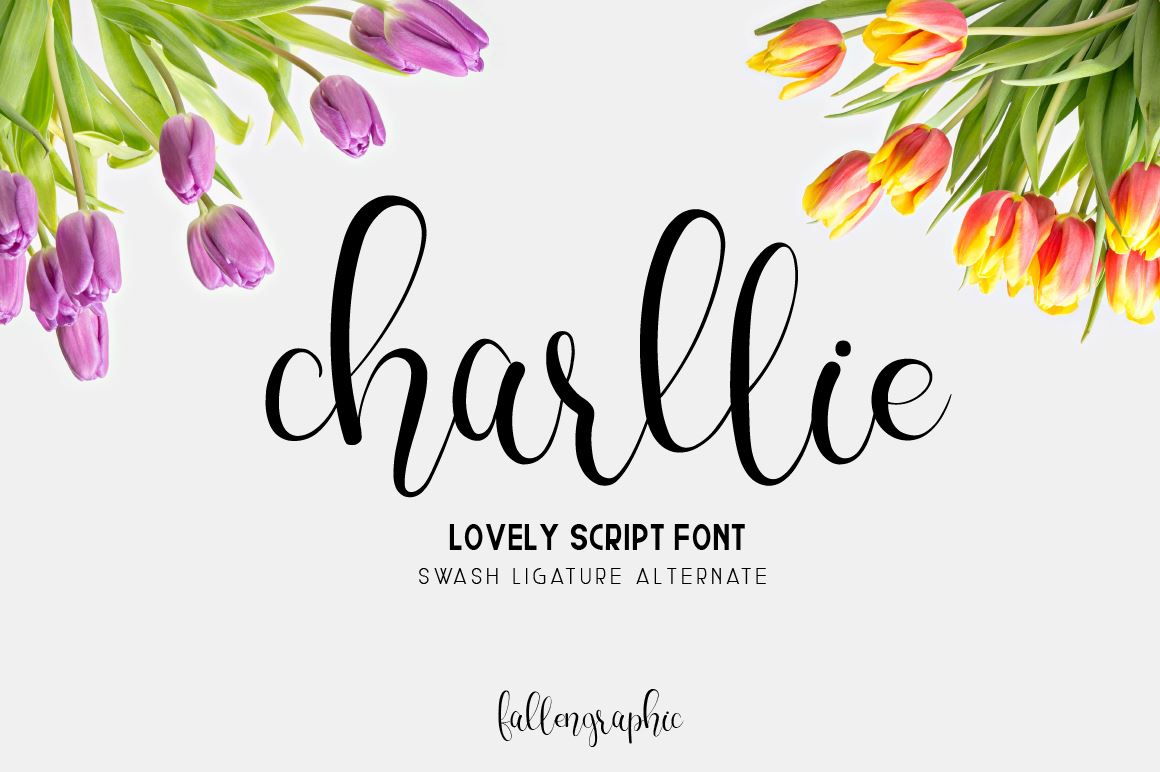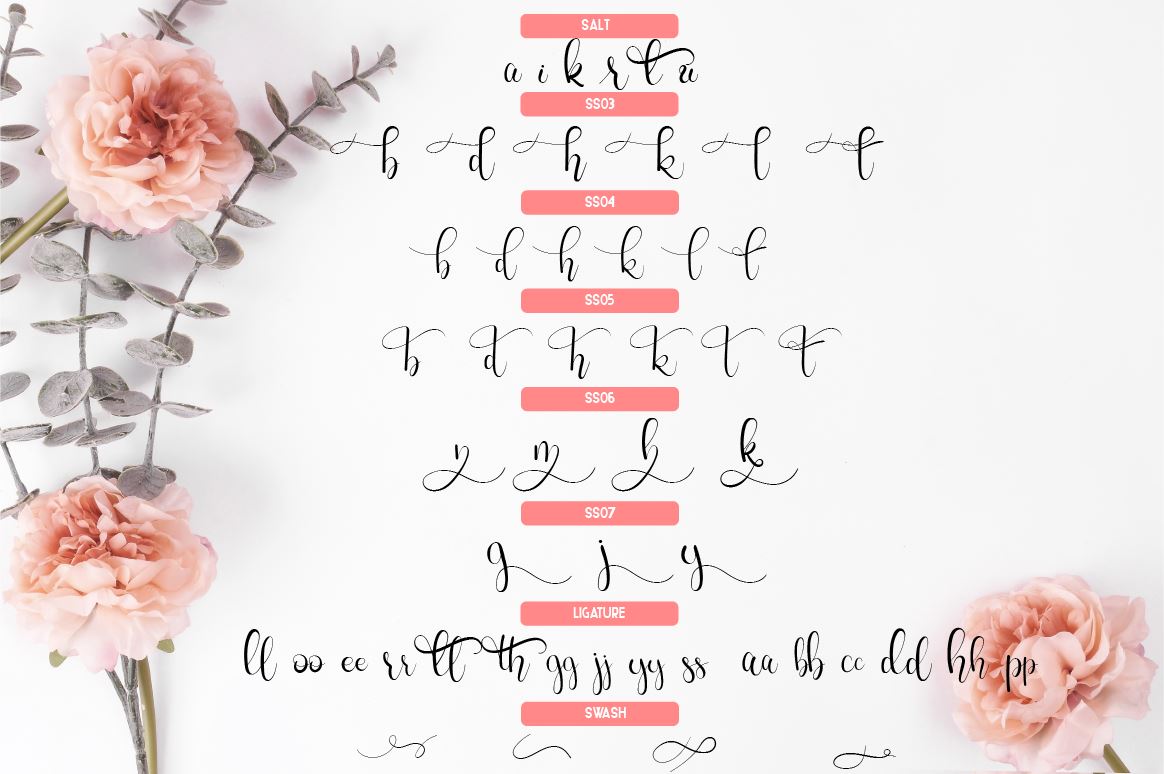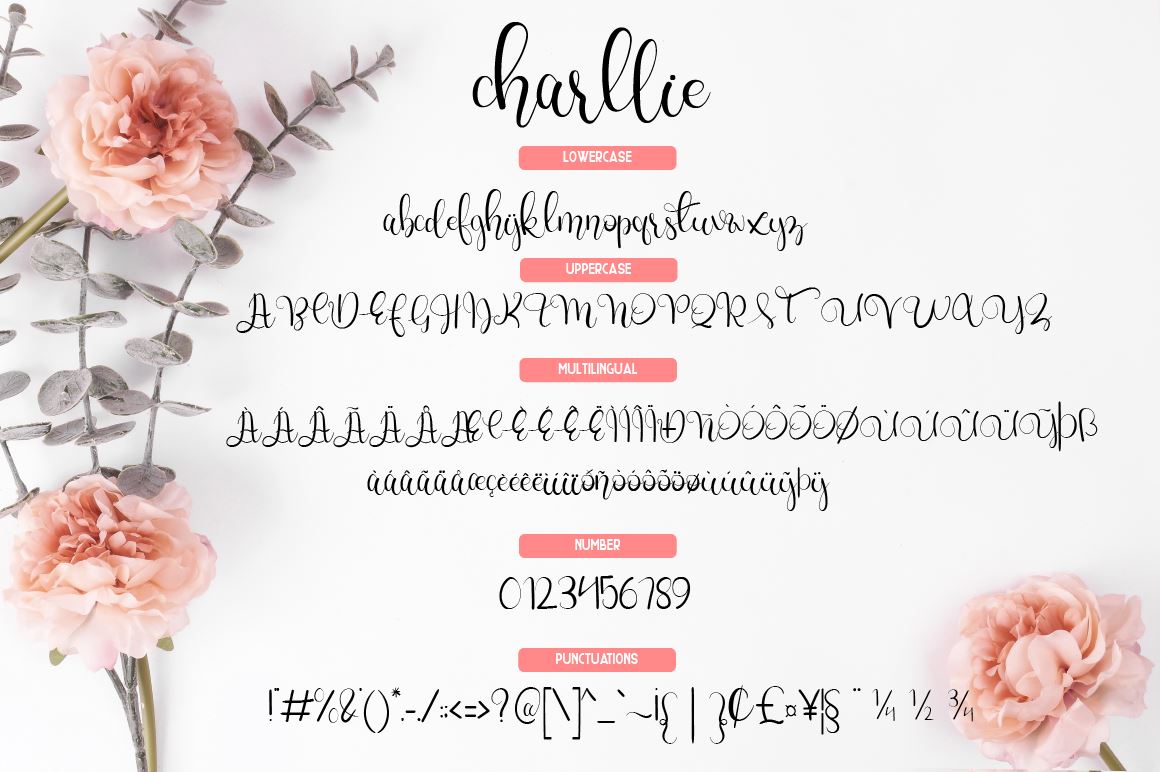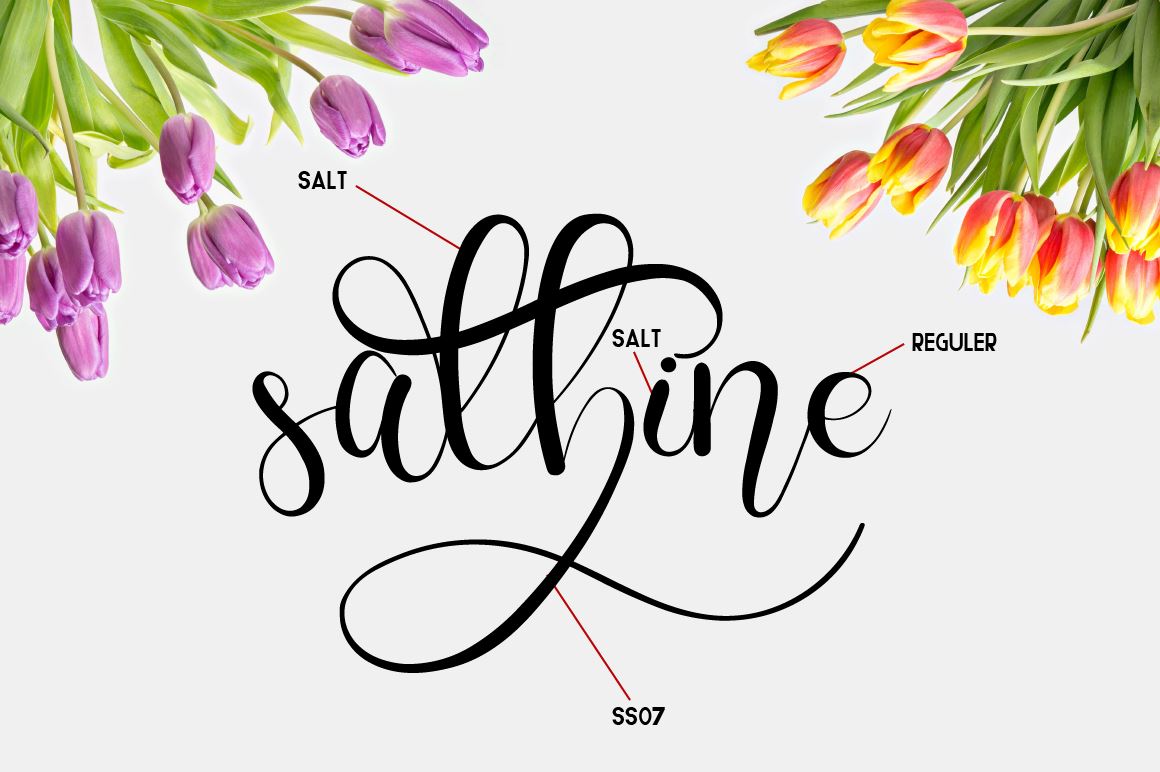
About Charllie Lovely Script Font
HELLO GUYS, NEW UPDATE 100% PUA ENCODED FULLY ACCESS Say Hello ! to ‘ charllie ‘ , The Charllie is an elegant handwritten font. It’s perfect for adding a feminine touch to upscale and chic designs.which is perfect for wedding invitations, advertisements, banners, books, business cards, signatures, and others who want a natural handwritten font type. What’s Included ? CHARLLIE FONT ( TTF, OTF,WOFF ) The Features of this fonts is : Standart ligatures Stylistic Alternate Stylistic Set SS01-SS07 Swash Multilingual Support if you want something please contact me to :  Thanks so much for checking out my shop! Vava Aryanto